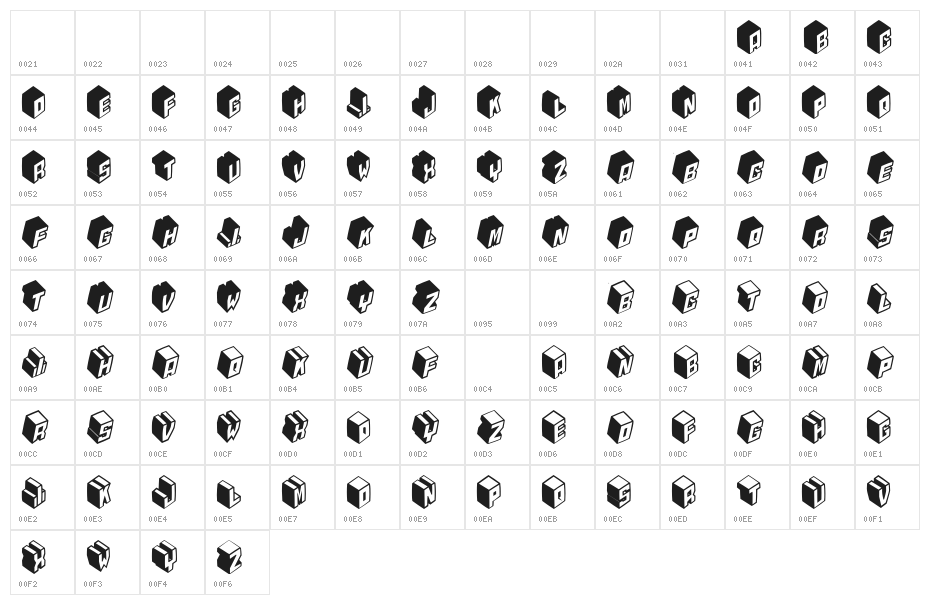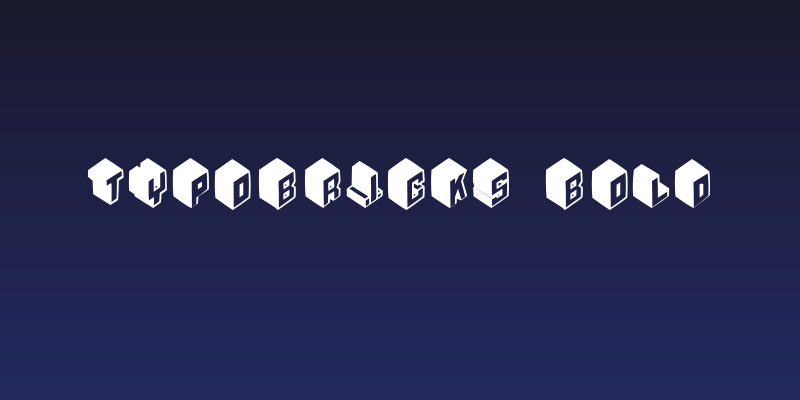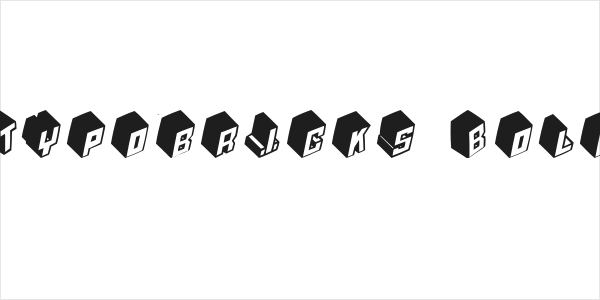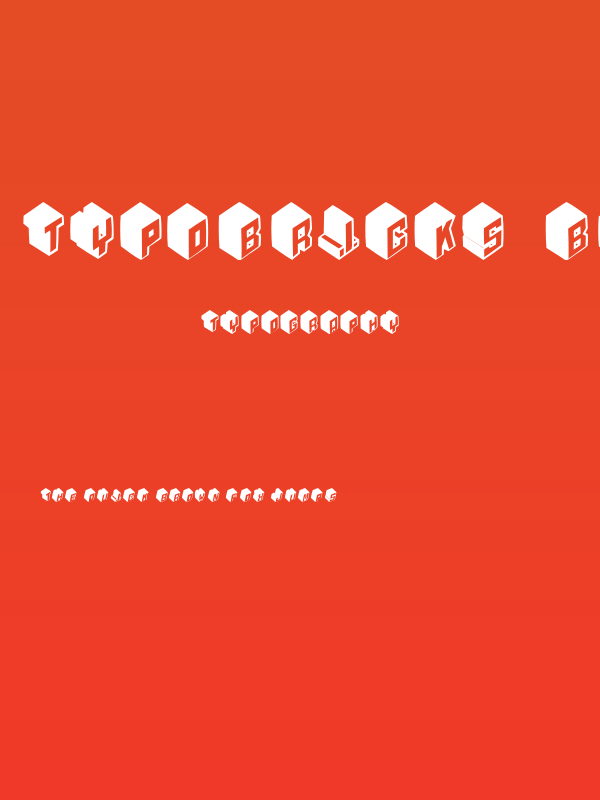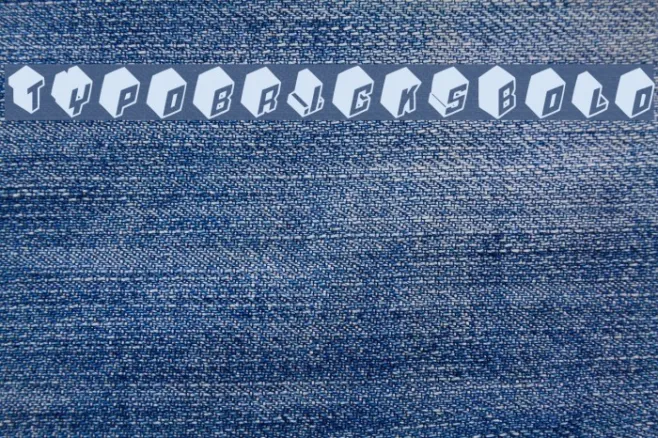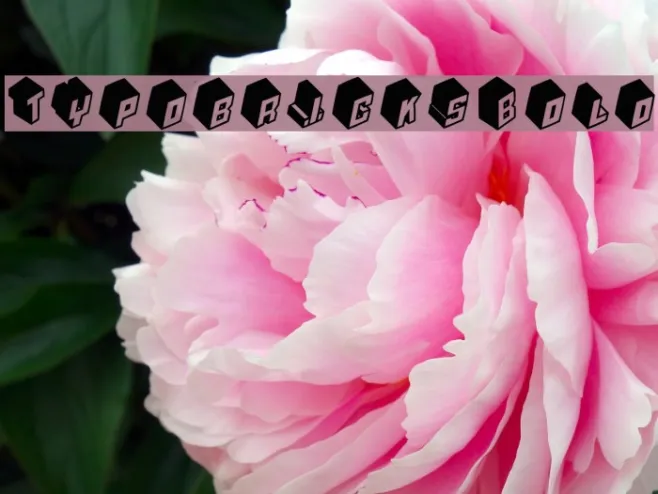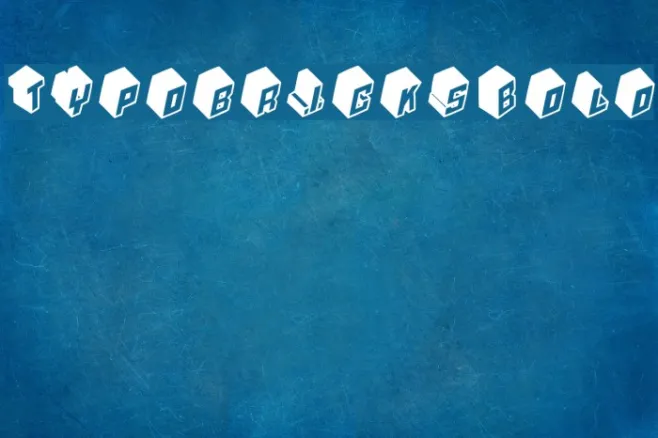
Typobricks-Bold Font
Typobricks-Bold Description
This font features a bold, three-dimensional design that resembles stacked bricks or blocks. Each character is encapsulated within a hexagonal shape, giving it a unique, geometric appearance. The letters are uppercase and have a strong, impactful presence, making them ideal for attention-grabbing designs. The style is reminiscent of architectural or construction themes, with a playful yet structured aesthetic. The boldness of the font ensures high visibility, while the 3D effect adds depth and interest.